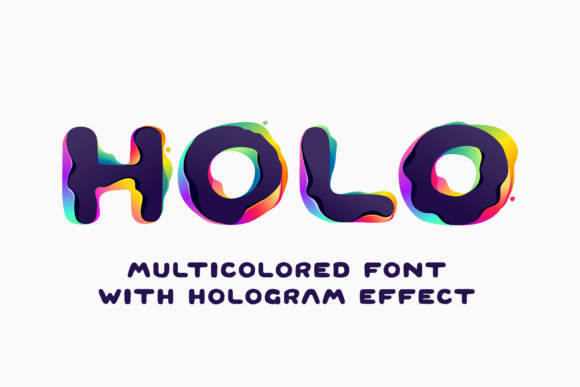
Behold, the Holo Shift Font: An Interstellar Symphony for Your Creative Endeavors!
Immerse yourself in a celestial dance of light and pattern with the Holo Shift Font, a resplendent display font that radiates brilliance and captivates the senses. Inspired by the enigmatic allure of the cosmos, this font transcends the ordinary, inviting you to embark on a journey where imagination reigns supreme.
As you caress each meticulously crafted glyph, feel the energy of the stars ignite your creativity. Behold the intricate play of light as it pirouettes across your designs, leaving a trail of cosmic wonder in its wake. With Holo Shift Font as your celestial muse, your words will shimmer with brilliance, entrancing your audience like a constellation of dreams.
Unleash the limitless possibilities that await you within the Holo Shift Font's resplendent embrace. Its versatility knows no bounds, transforming your creations into masterpieces that transcend time and space. Whether you're weaving tales of intergalactic adventure, crafting logos that radiate cosmic energy, or designing projects that demand a touch of the extraordinary, Holo Shift Font will elevate your vision to new heights.
Step into the spotlight and let the Holo Shift Font illuminate your creative journey. Bask in the adulation of your audience as they witness your designs dance across the digital sphere, leaving a trail of stardust in their wake. With every stroke of your creative brush, you'll paint a masterpiece that reverberates with the power of the cosmos.
Let the Holo Shift Font be your celestial companion, guiding you through the vast expanse of your imagination. Embrace the transformative power of its radiant glow, and watch as your designs ascend to new levels of brilliance. Dare to dream, dare to create, and let the Holo Shift Font be your cosmic muse, illuminating your path to greatness. Prepare to be mesmerized.